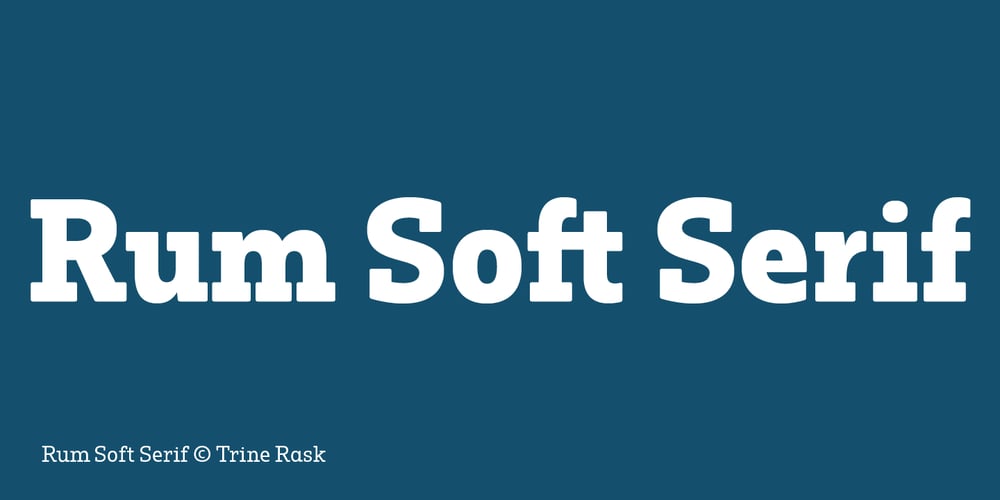
Rum Soft Serif Font Family was designed by Trine Rask and published by Trine Rask. Rum Soft Serif contains 10 styles and family package options. Rum Soft Serif is a soft version of Rum Serif with softly rounded outer corners.Rum Soft Serif is a text & display family suitable for any purpose, any media, any size. A humanistic modular Serif in five weights containing small caps, italic, swashes, alternative characters, old style, lining, tabular & proportional figures. Design date: 2011-2023The complete family consists of Sans Serif & Serif in both sharp and soft version + the display fonts Rum Plakat & Rum Silhouette.